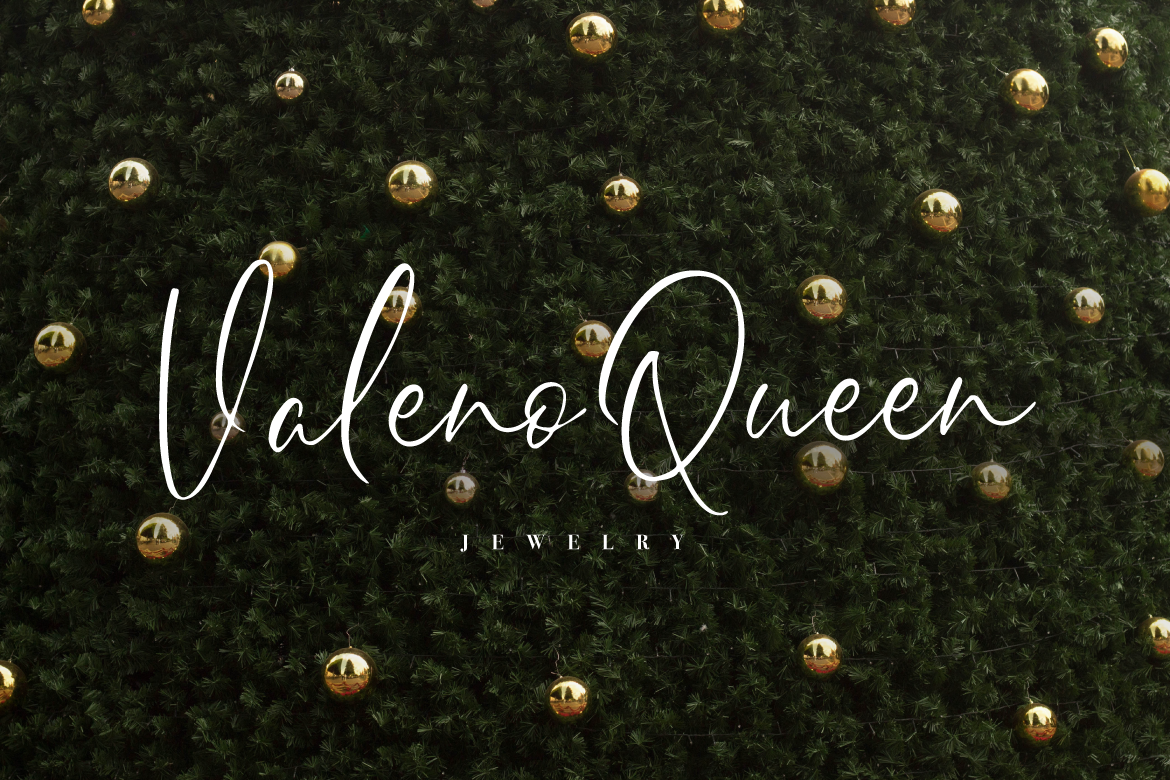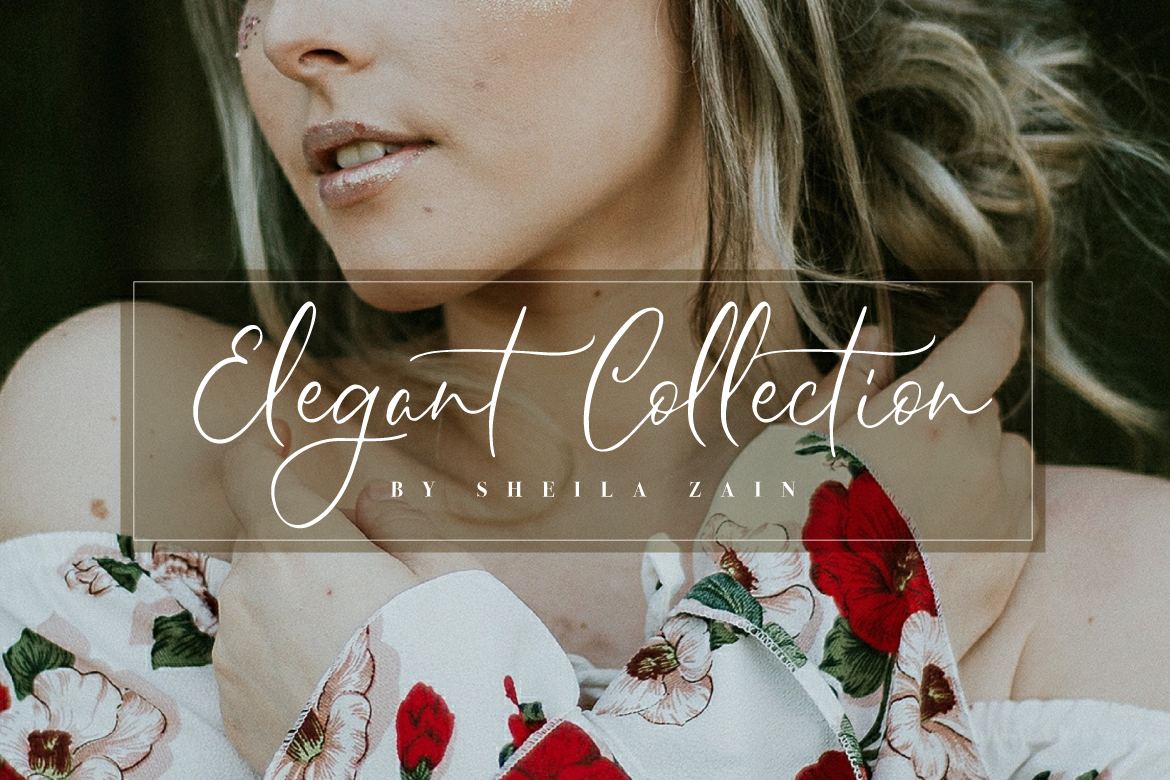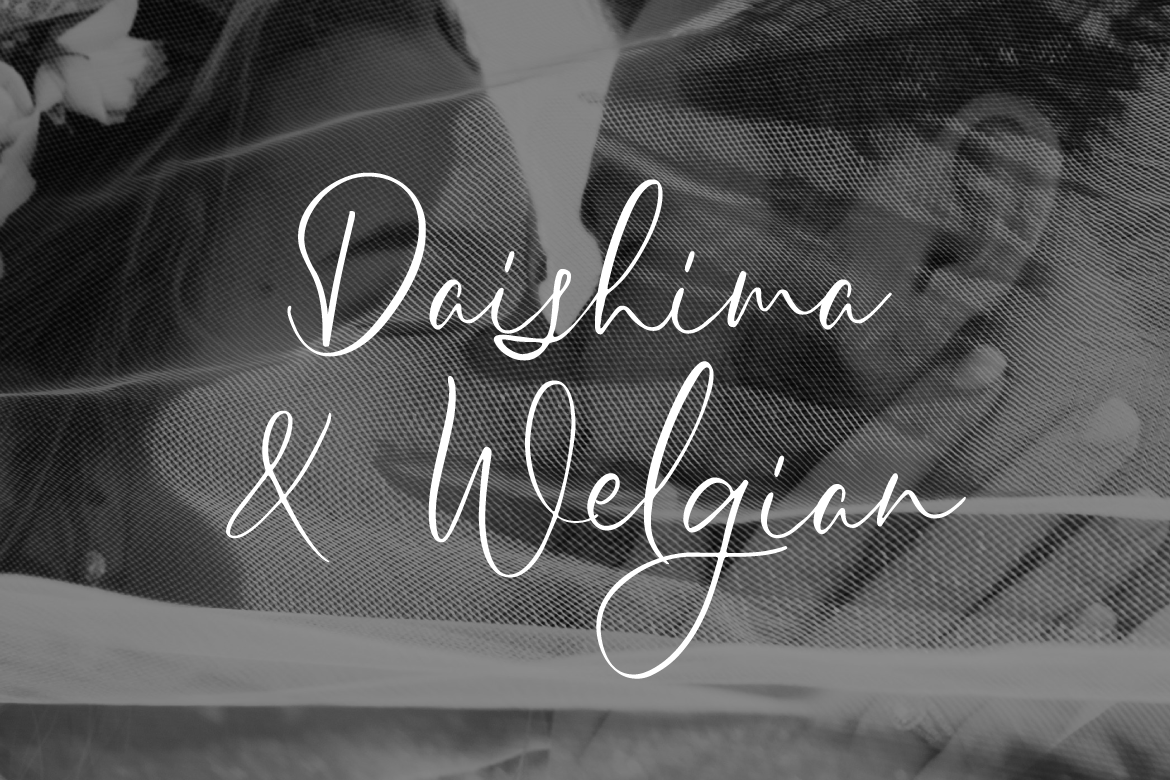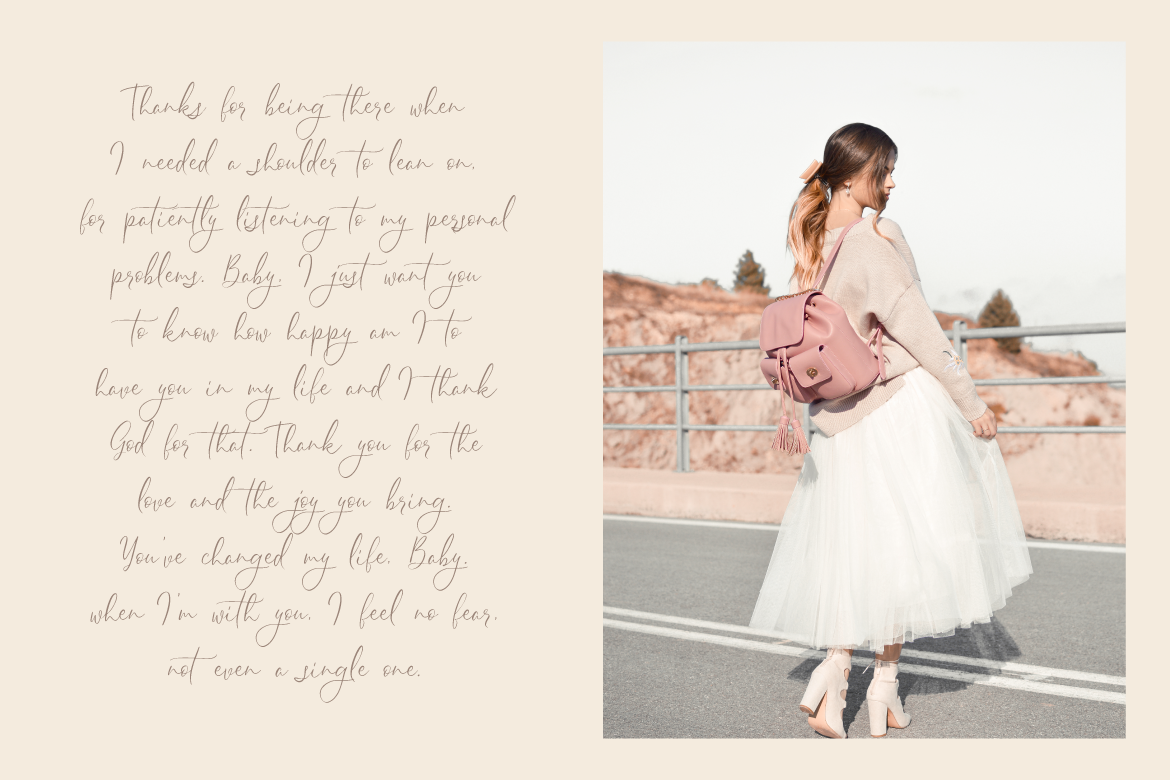
Sheilazain Font
About Sheilazain Font
Looking for a new elegant font with a romantic feel and natural flow? Say hello to Sheilazain, an elegant and modern calligraphy/cursive font.